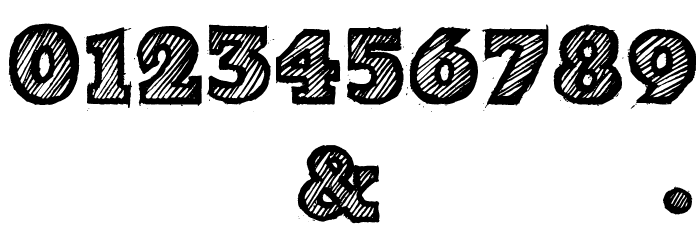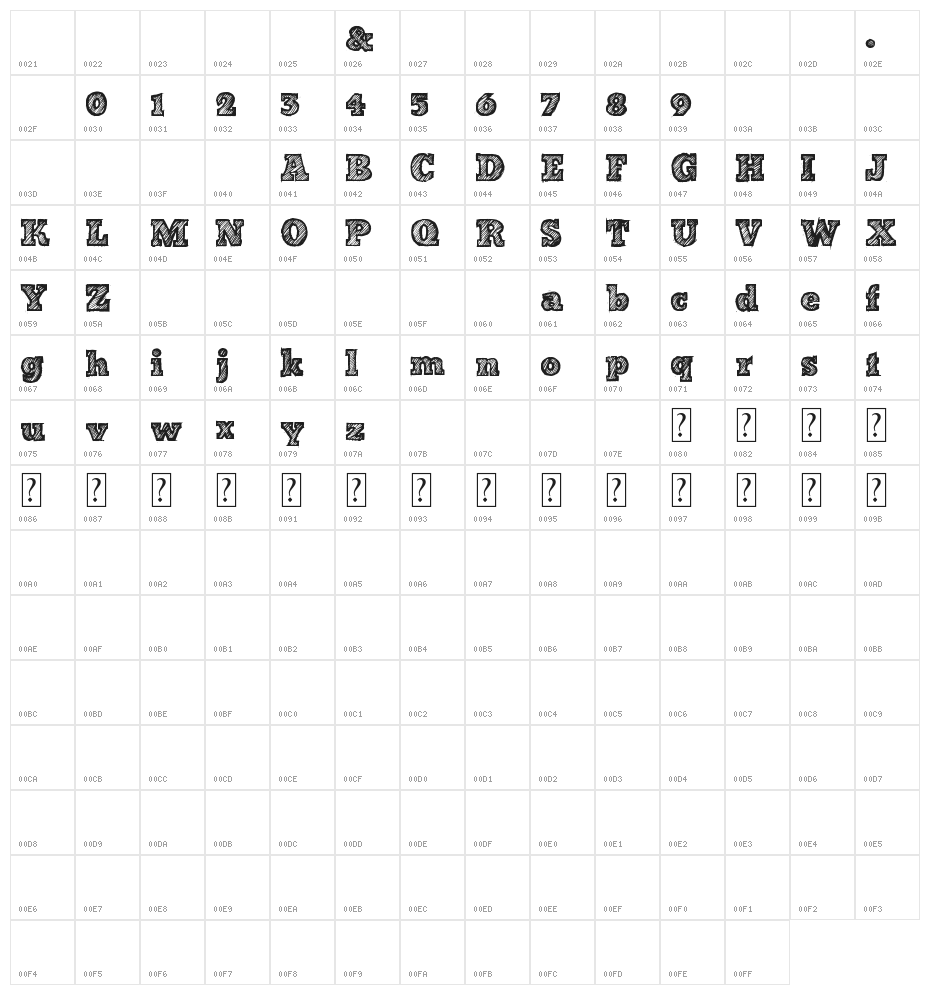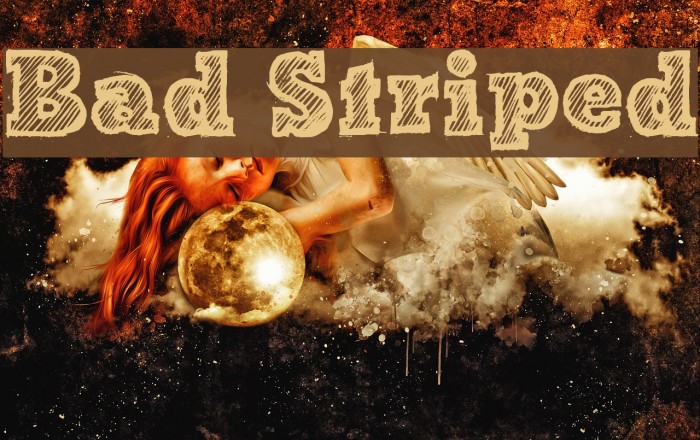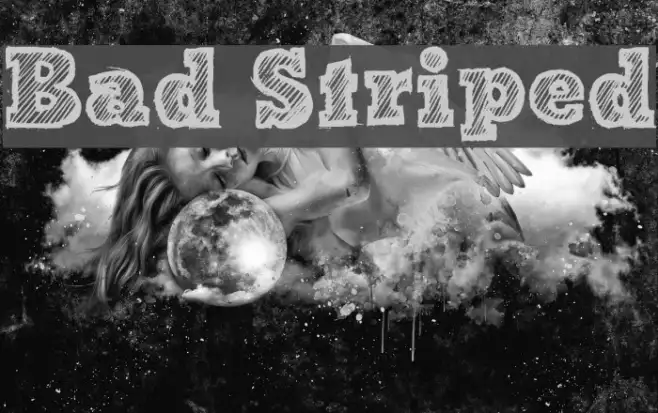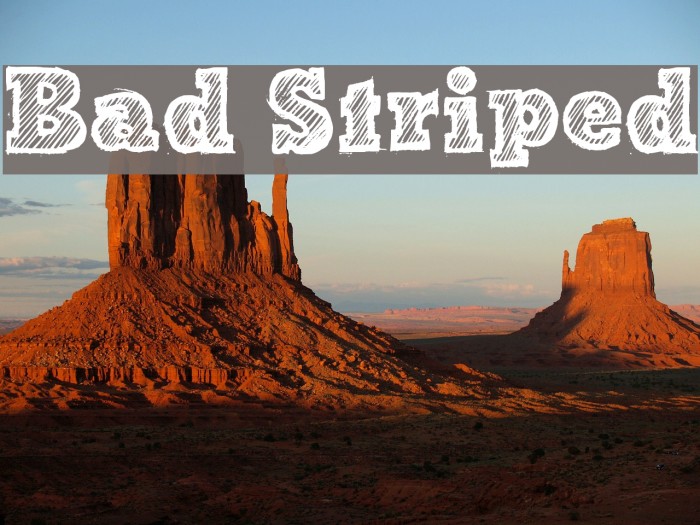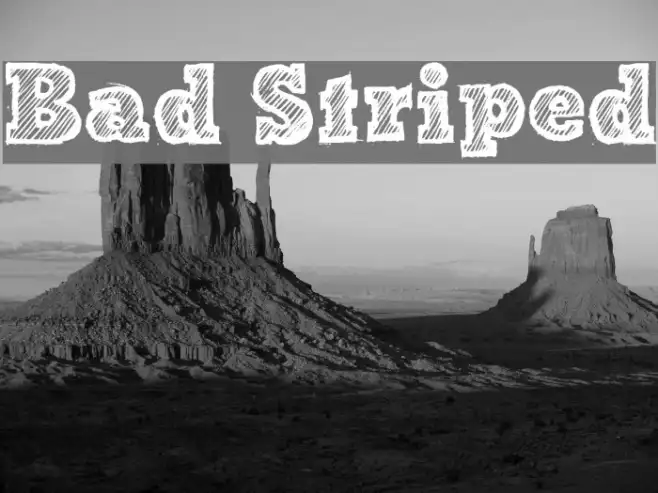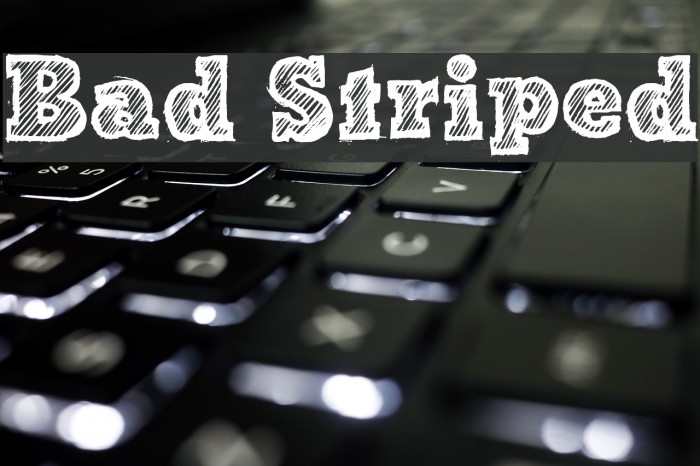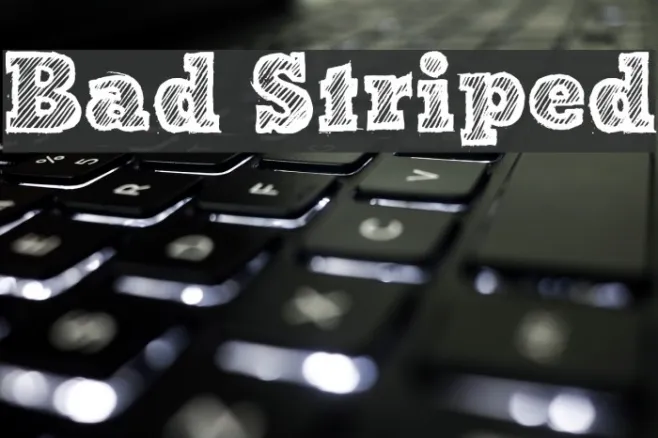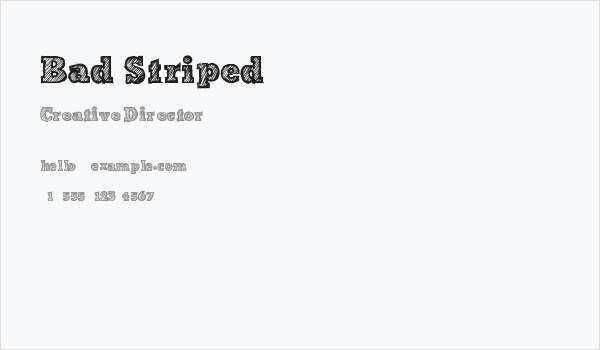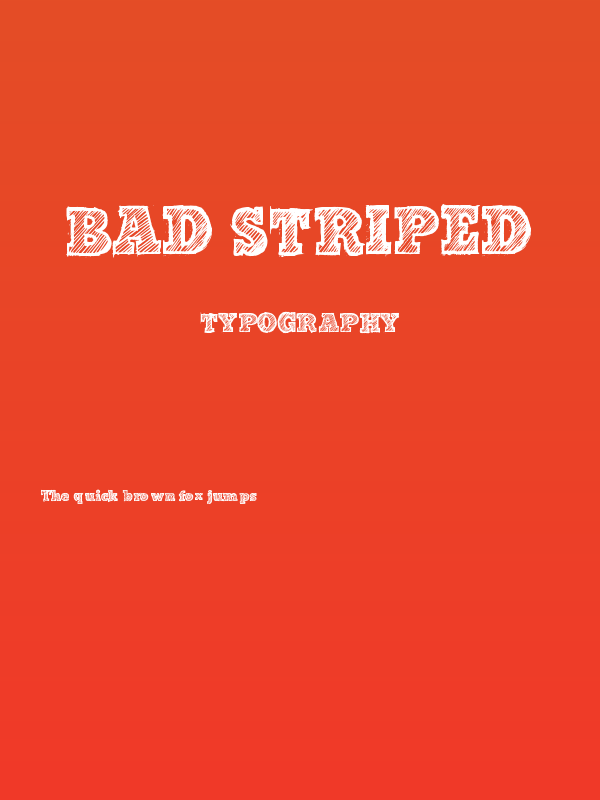
Bad Striped Font
Bad Striped Description
This font features a bold, textured design with a hand-drawn appearance. Each character is filled with diagonal stripes, giving it a unique, sketch-like quality. The uppercase and lowercase letters maintain a consistent style, with thick strokes and a playful, artistic flair. The numbers and special characters follow the same pattern, ensuring a cohesive look across all elements. This font's distinctive style makes it stand out, ideal for projects that require a creative and informal touch.
| Proposed Projects | Ideal for posters, creative branding, children's books, and artistic projects. |